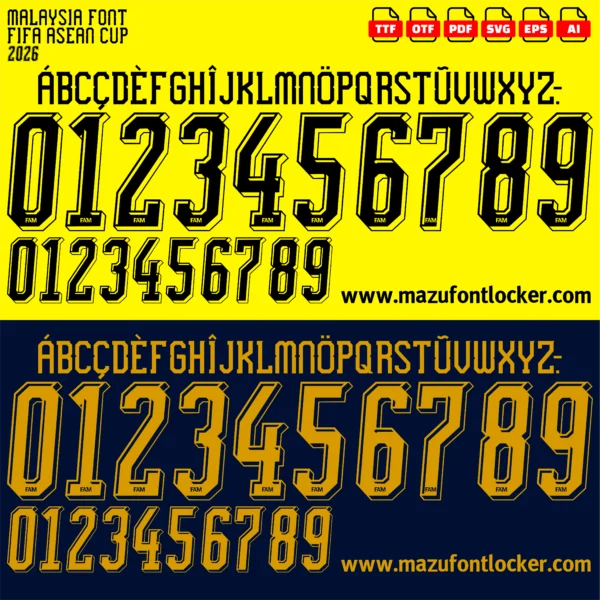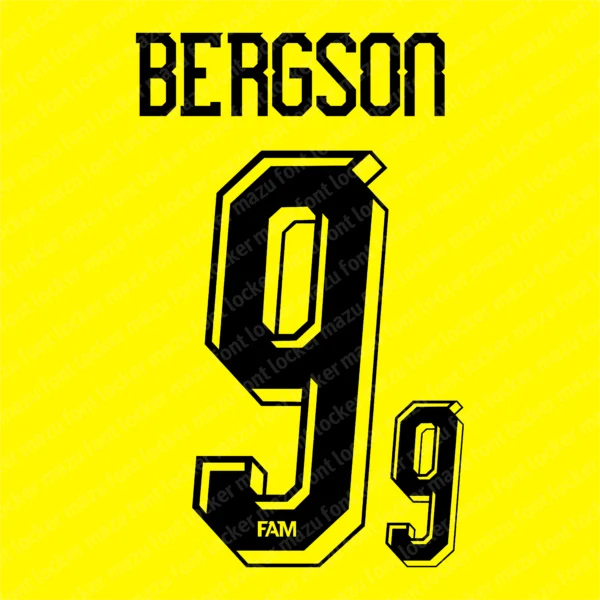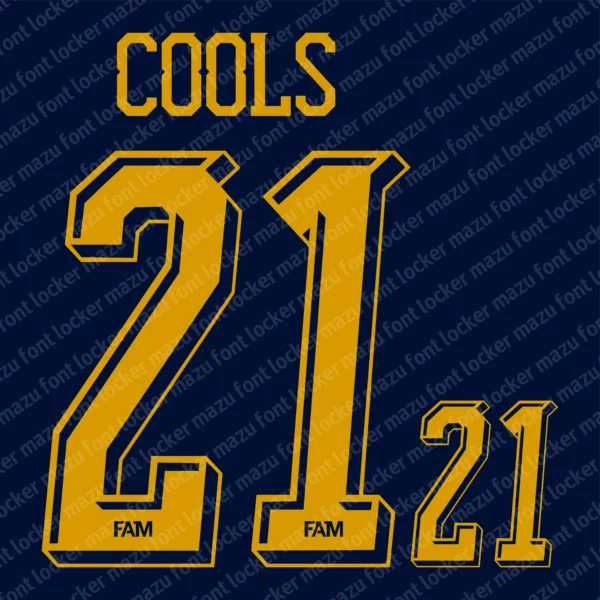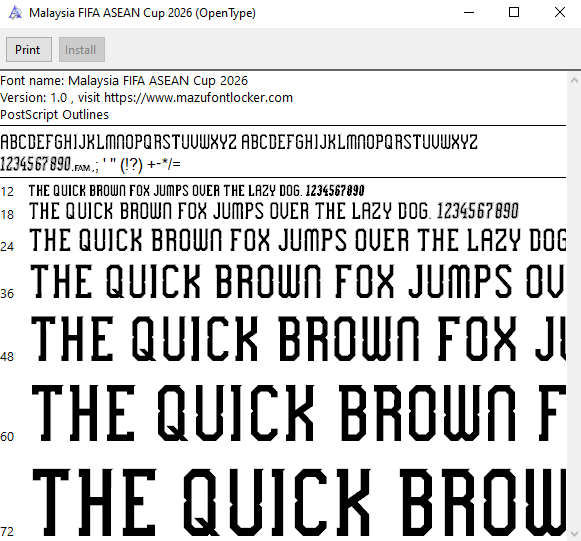
Malaysia FIFA ASEAN Cup 2026 Font Vector – Powerful Harimau Malaya Masterpiece
This font captures the razor-sharp, thunderous lettering that embodies Malaysia’s proud national identity, rich football heritage, legendary Harimau Malaya spirit, and relentless determination — delivering premium quality and explosive energy for jersey mockups, football graphics, sports branding, and fan creations.
Malaysia FIFA ASEAN Cup 2026 Font Vector – Harimau Malaya Typeface
The Malaysia FIFA ASEAN Cup 2026 Font Vector is a premium football typeface inspired by the official match lettering and squad-number style associated with Malaysia during the 2026 FIFA ASEAN Cup campaign. This high-quality vector font kit captures the bold, modern, and energetic visual character of Malaysian football, reflecting the iconic identity of the Harimau Malaya on the international stage.
Designed for professional designers, football enthusiasts, collectors, and passionate Malaysia supporters, the Malaysia FIFA ASEAN Cup 2026 Font Vector provides an authentic football-inspired appearance for creating realistic jersey mockups, football merchandise, social media graphics, match posters, banners, and custom fan artwork. Every character has been carefully recreated to deliver a strong and professional visual style inspired by Malaysia’s national football identity.
This font stands out thanks to its precise vector construction and distinctive Malaysian football-inspired styling. Every letter and numeral has been carefully designed to reproduce the bold appearance associated with modern international football jersey typography. Whether you’re creating professional kit templates, digital artwork, football graphics, or custom jersey concepts, the Malaysia FIFA ASEAN Cup 2026 Font Vector delivers a powerful match-ready appearance inspired by the proud identity of Harimau Malaya.
The lettering featured in the Malaysia FIFA ASEAN Cup 2026 Font Vector combines modern geometric construction with strong athletic proportions. The clean shapes and confident structure create a professional football aesthetic that reflects Malaysia’s national team identity, competitive spirit, speed, determination, and passion for the game.
The numerals feature balanced curves, sharp details, and consistent proportions for excellent readability on football jerseys and digital media. Built as scalable vector artwork, every number remains crisp and clean for jersey customization, posters, banners, squad graphics, printing projects, and high-resolution football artwork.
- Complete uppercase A–Z alphabet and numbers 0–9 in Malaysia FIFA ASEAN Cup 2026 style
- Special FAM badge glyph – Press the “:” (Colon) key to insert the club crest
- Recreate the distinctive look of Malaysia player names and squad numbers for creative projects
The Malaysia FIFA ASEAN Cup 2026 Font Vector is designed to capture the bold visual character associated with modern Malaysian football typography. It is suitable for football designers, jersey collectors, digital artists, supporters, and creators looking to produce Malaysia national team-inspired artwork. For official information about international football competitions, visit the official FIFA website. For information about football in Southeast Asia and regional football activities, visit the official ASEAN website. For Malaysian football news, national team information, and updates from the country’s football governing body, visit the Football Association of Malaysia (FAM) official website.
The Malaysia FIFA ASEAN Cup 2026 Font Vector is an independently designed typeface package inspired by football lettering associated with Malaysia’s 2026 ASEAN Cup campaign. It has been carefully recreated for football enthusiasts, graphic designers, collectors, jersey creators, and digital artists producing custom jersey concepts, football artwork, squad graphics, and fan-made projects. Please note that this is a fan-made design resource and is not an official product of the Football Association of Malaysia, FIFA, ASEAN, or any associated organization. This product is intended as an independent creative resource for personal and design projects.